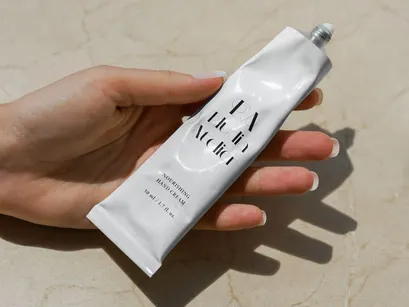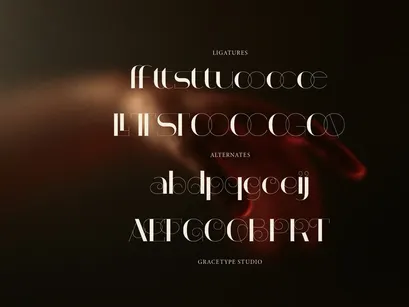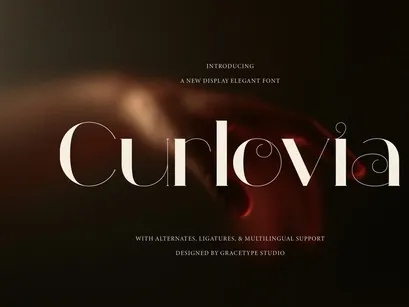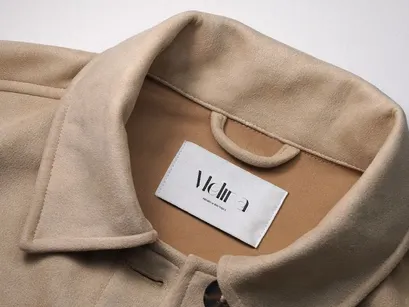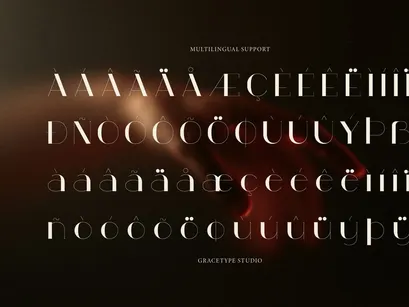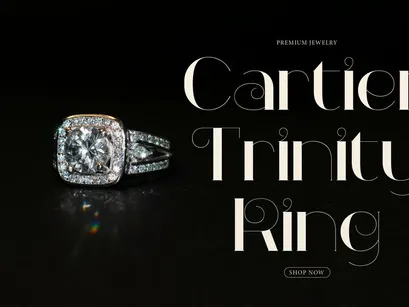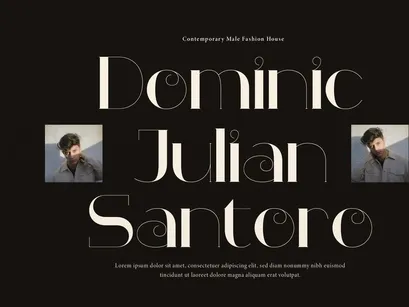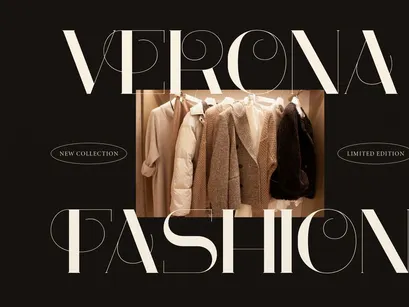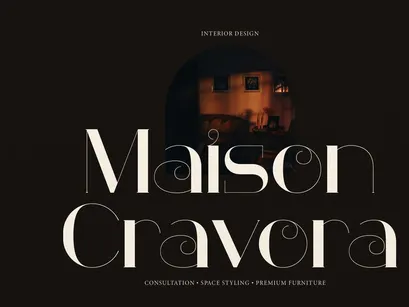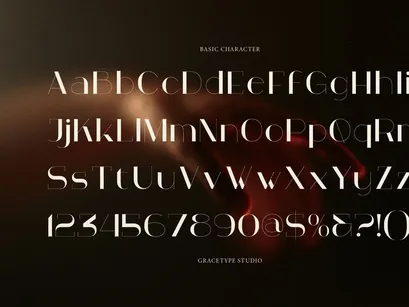
Curlovia | Display Elegant Font
Curlovia Italic
Curlovia
Curlovia | Display Elegant Font, from Gracetypestudio, suitable for any projects such as: logos, branding projects, homeware designs, product packaging, mugs, quotes, posters, shopping bags, t-shirts, book covers, name card, invitation cards, greeting cards, label, photography, watermark, special events, and all your other lovely projects that need a sans taste.